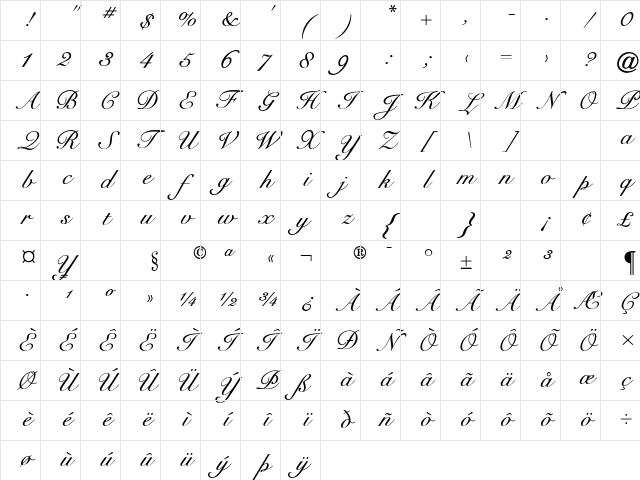
CygnetRound Regular
Design Context for CygnetRound
CygnetRound softens its letterforms with rounded terminals, giving it an approachable, friendly quality that works well in consumer-facing and digital contexts.
Font Pairing: Pairs well with a rounded or humanist sans for body copy, maintaining the friendly tone without relying on CygnetRound to carry extended reading.
Pro Tip: Use CygnetRound for UI elements, app interfaces, and anywhere a friendly, approachable tone needs to be maintained without sacrificing clarity.